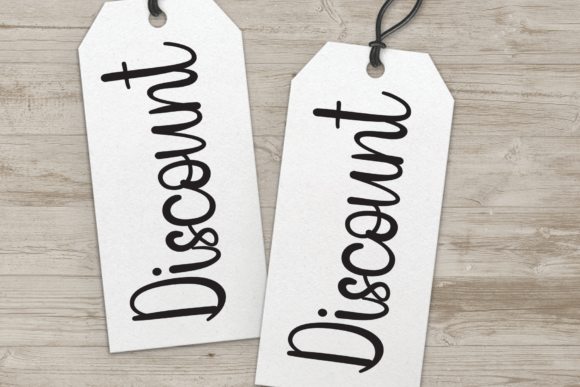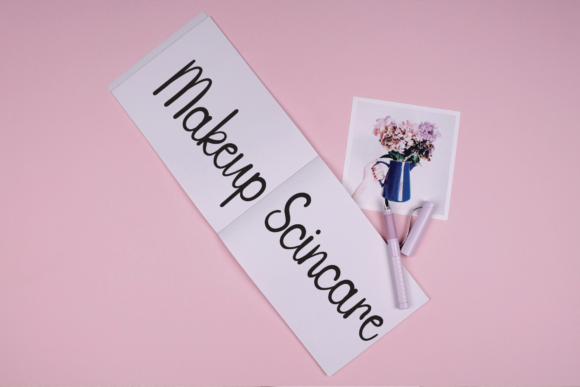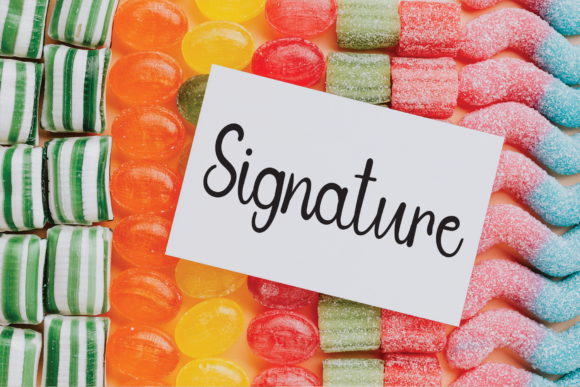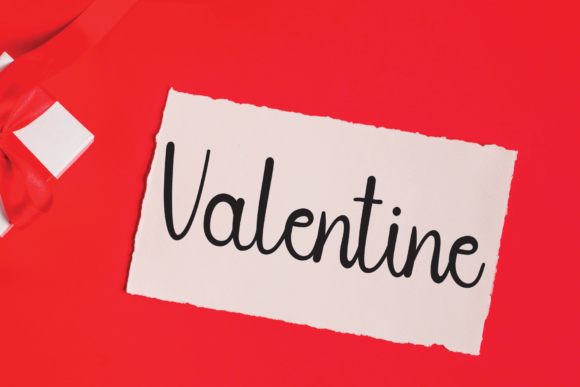
About Santoriny Font
Dive into the enchanting realm of a script font that embodies sweetness, whimsy, fluidity, and a delicate thinness. With characters gracefully engaged in a dance along a baseline, this font promises to infuse a touch of luxury into any design project you undertake!
This script font is a visual treat, capturing the essence of sweetness with a playful and graceful dance. Each character moves seamlessly along the baseline, creating a rhythmic visual flow that is both captivating and whimsical. The fluid strokes contribute to the font’s overall elegance, making it a perfect choice for projects that demand a harmonious blend of sophistication and fanciful charm.
Imagine the impact of this script font on a wedding invitation, where the letters pirouette and twirl, setting the stage for a celebration filled with grace and charm. Picture it gracing high-end product packaging, instantly elevating the visual appeal with an air of exclusivity and refined aesthetics that resonate with discerning consumers.
The font’s thin and delicate lines enhance its visual appeal, ensuring a lightweight and versatile quality. Whether applied to branding, logos, or editorial design, its enchanting characteristics remain pronounced, offering a seamless and delightful reading experience across various mediums, be it digital or print.
This whimsical script font goes beyond conventional typography; it’s a visual symphony where characters come to life in a dance, making a bold and captivating statement in design communication. As technology and design continue to evolve, the timeless allure of this font endures, capable of adding a touch of magic to a diverse range of creative projects.
In summary, this sweet, whimsical, fluid, and thin script font, featuring characters dancing along a baseline, is more than a typographic choice—it’s an artistic touch. As you embark on your creative journey, consider the luxurious and sophisticated splash this font can bring to your projects, elevating them with a harmonious blend of visual appeal and aesthetic delight.